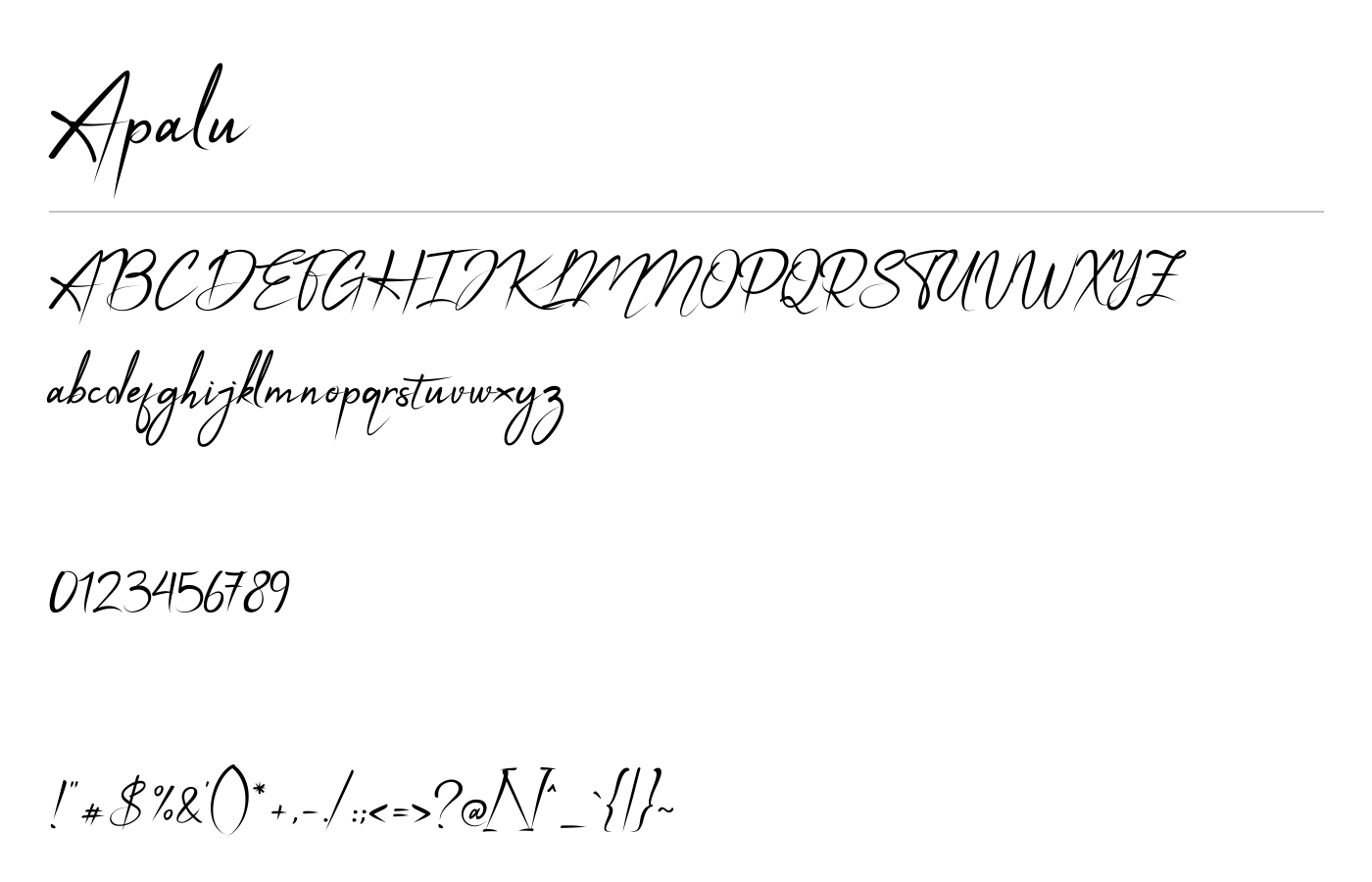
Apalu is a delicate, handwritten script font with elegant, flowing strokes and a lively, personal feel. Its slender lines and slightly irregular shapes give it a charming, artistic character, perfect for adding a touch of sophistication and warmth to invitations, branding, or creative projects. This font works well where a stylish yet approachable handwritten look is desired.
Apalu Font
About Apalu Font